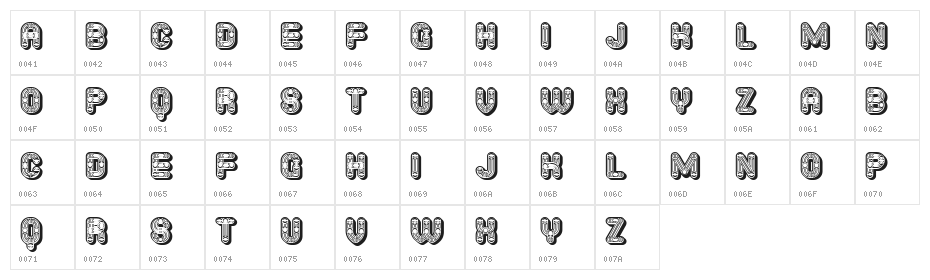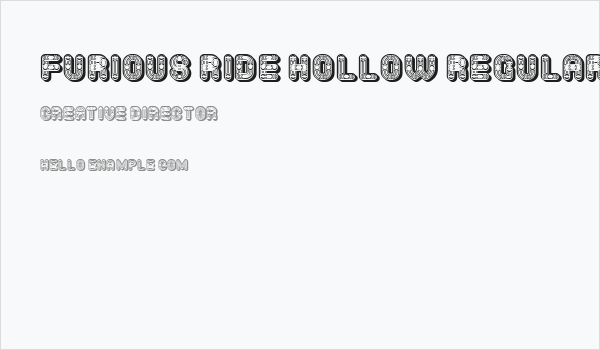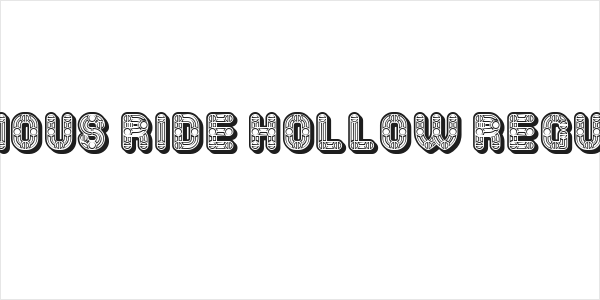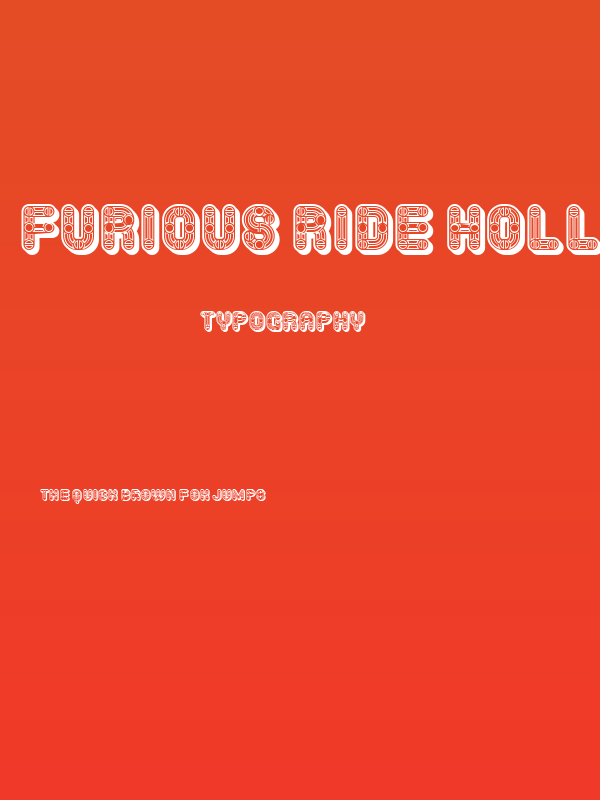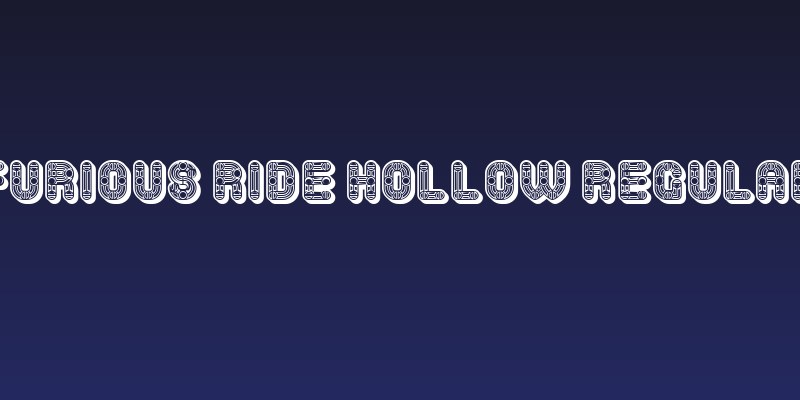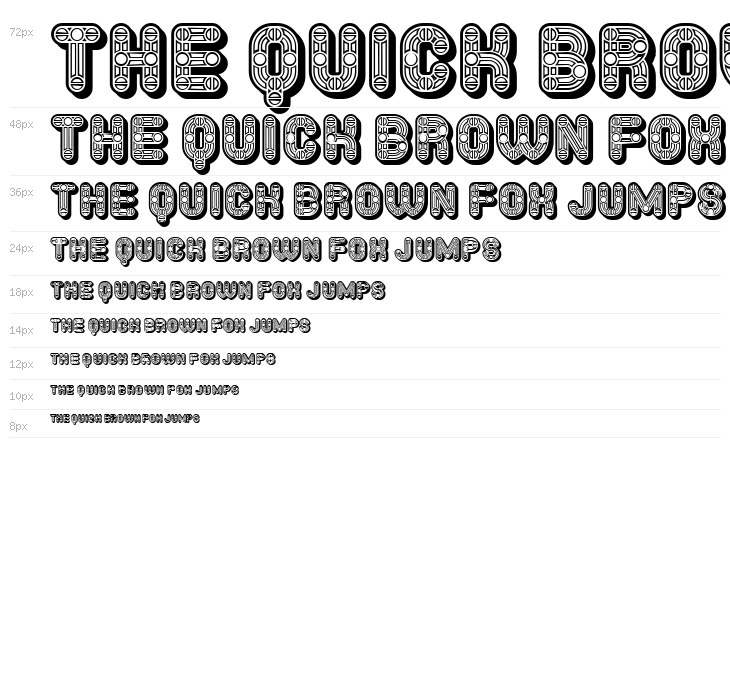
Furious Ride Hollow Regular Font
Furious Ride Hollow Regular Description
This font features a bold, decorative style with a hollow interior, giving it a unique and eye-catching appearance. Each character is outlined with a thick black border, while the inner sections are intricately designed with geometric patterns. The font maintains a consistent width across all characters, contributing to a cohesive and uniform look. Its playful and artistic design makes it suitable for creative projects that require a standout typeface. The font's decorative nature is ideal for use in headlines, posters, and other display purposes where visual impact is essential.
| Proposed Projects | Ideal for posters, headlines, branding, and creative design projects. |